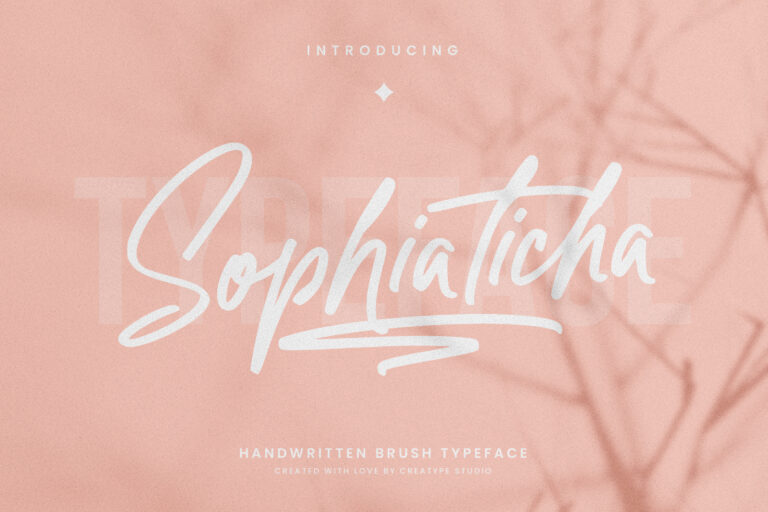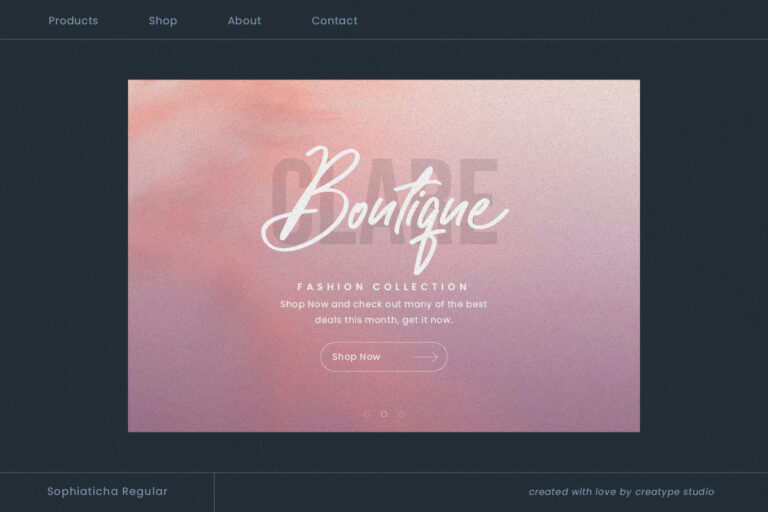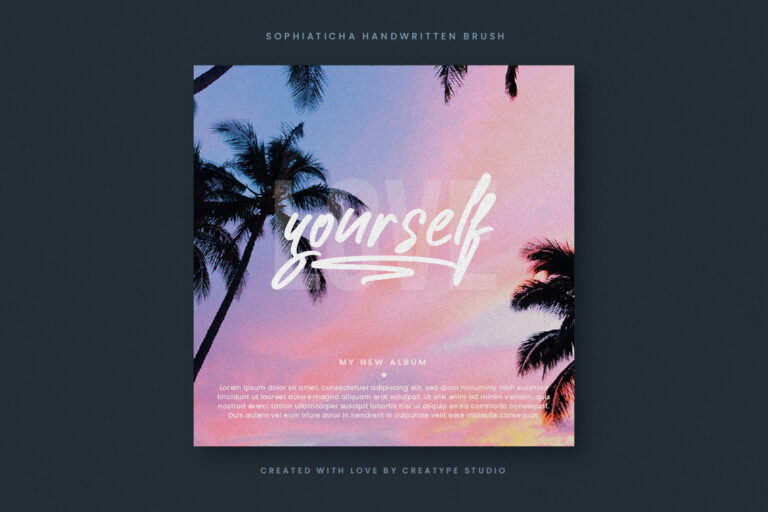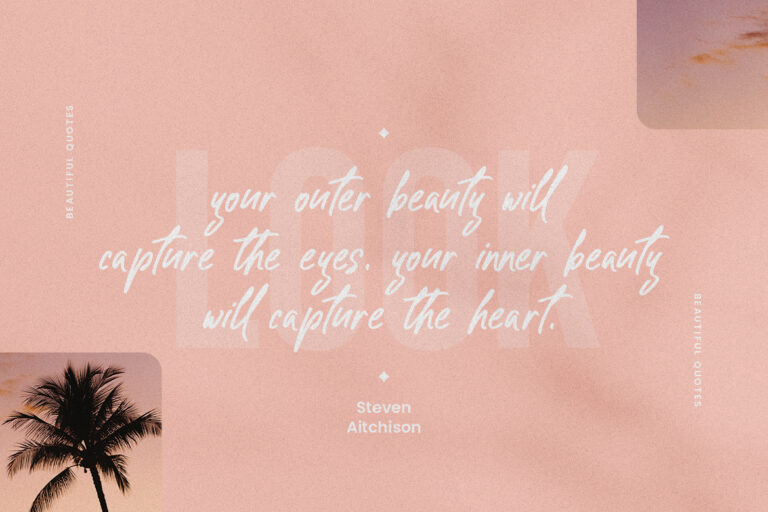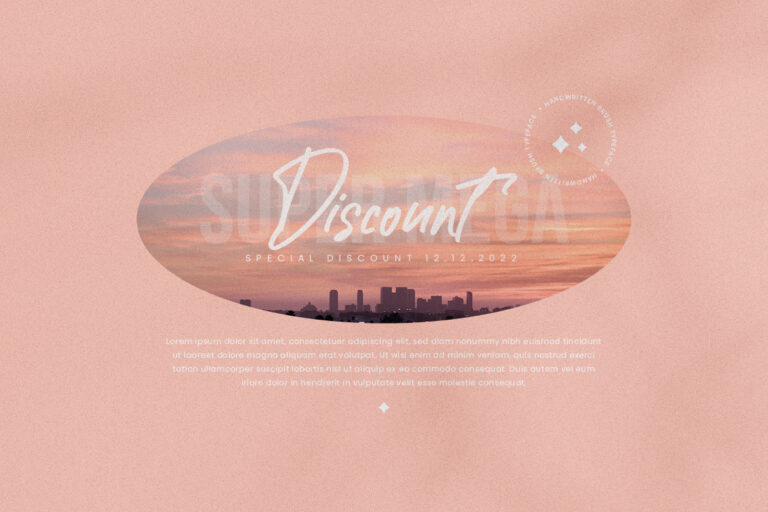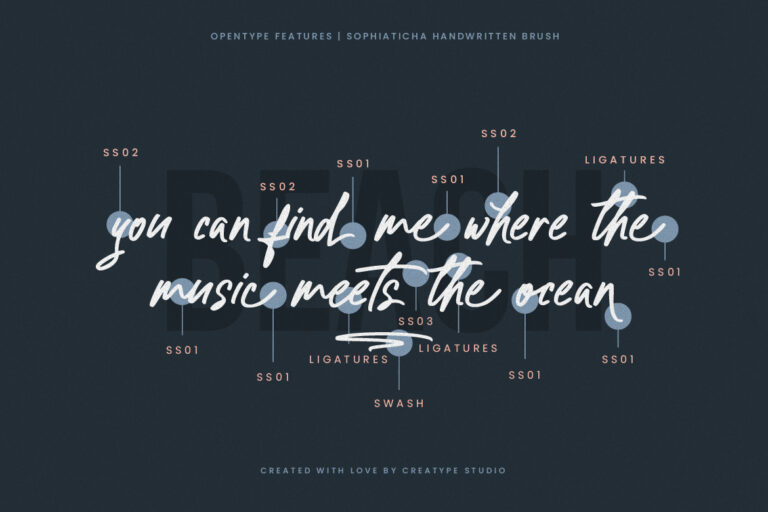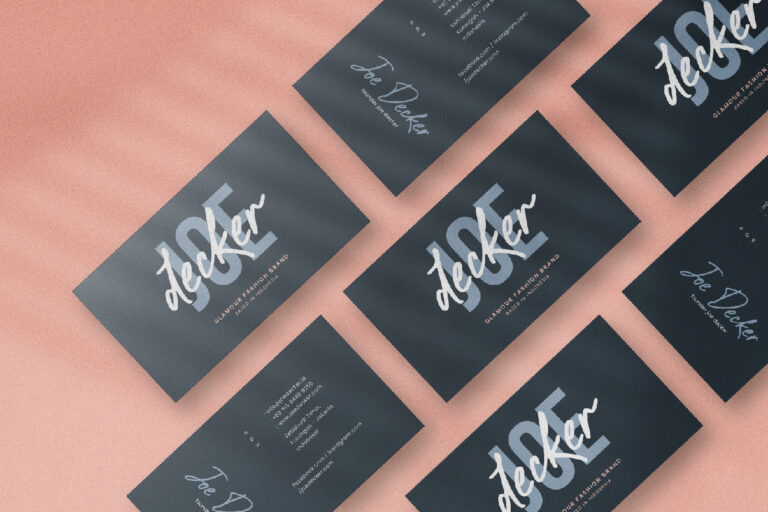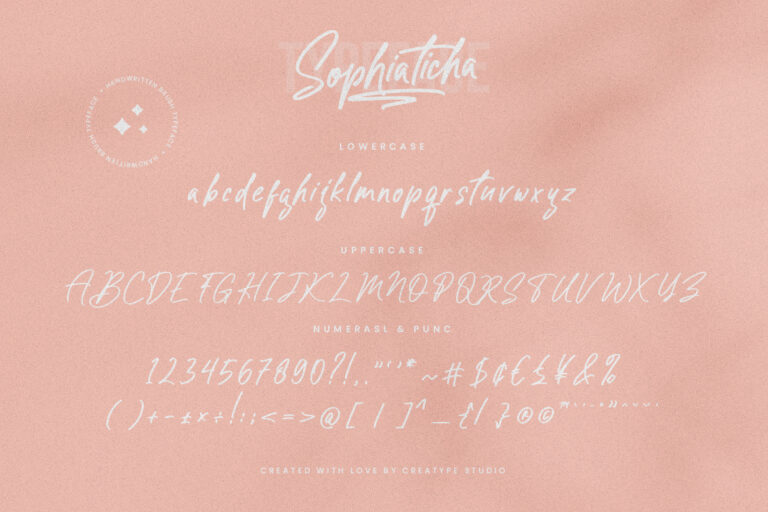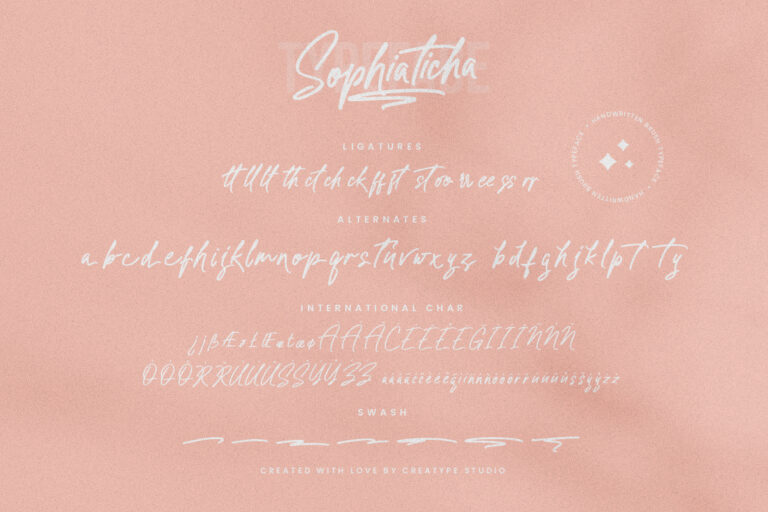
Sophiaticha is a handwritten brush typeface, with consistent, smooth and bold strokes making this font look very stylish and feminine. There is a swash effect on this font, making this font look so bold and smooth without leaving a feminine impression in it.
Sophiaticha Handwritten Brush is perfect for branding projects, logo, wedding designs, social media posts, advertisements, product packaging, product designs, label, photography, watermark, invitation, stationery and any projects that need handwriting taste.
Sophiaticha Handwritten Brush